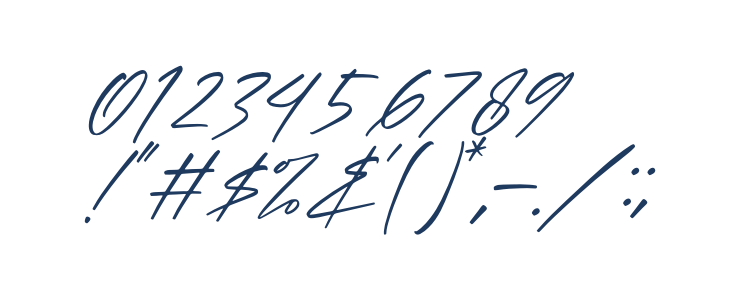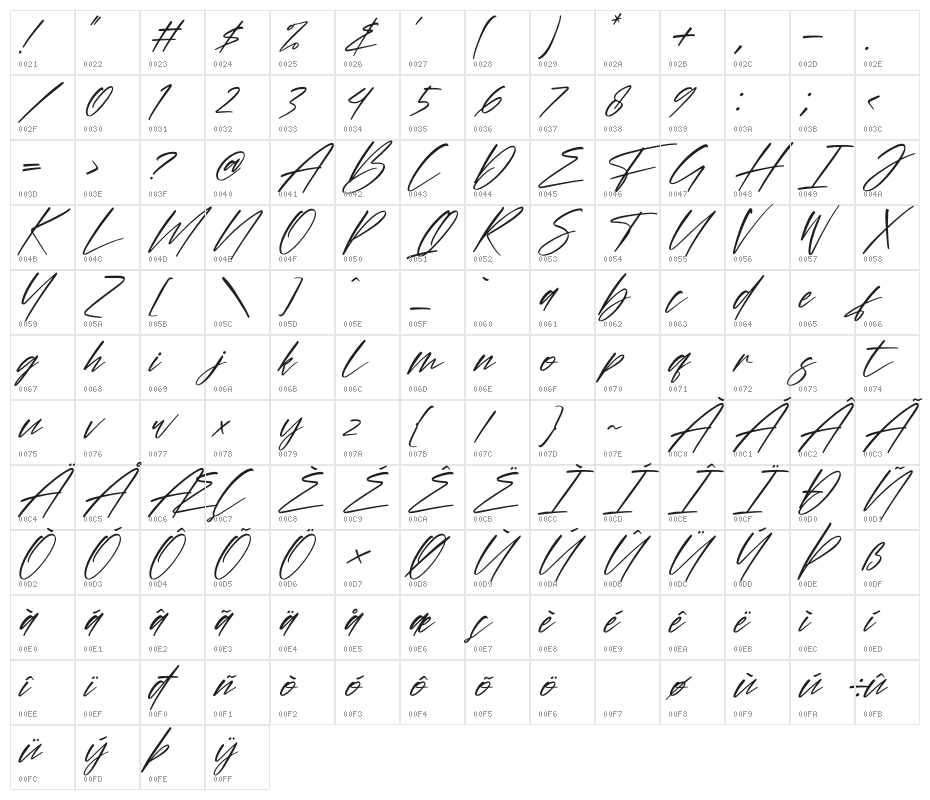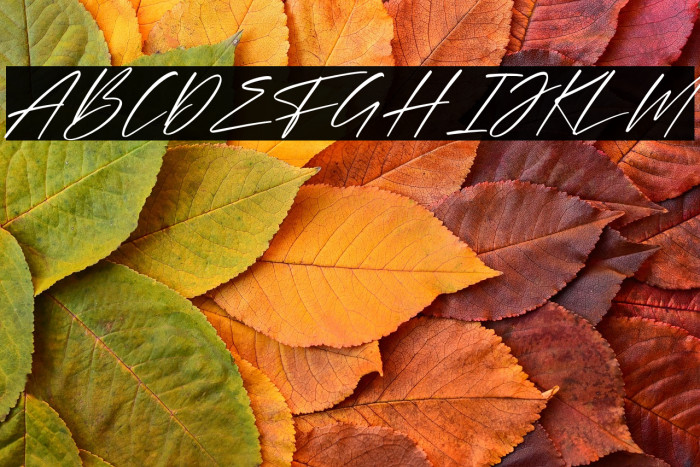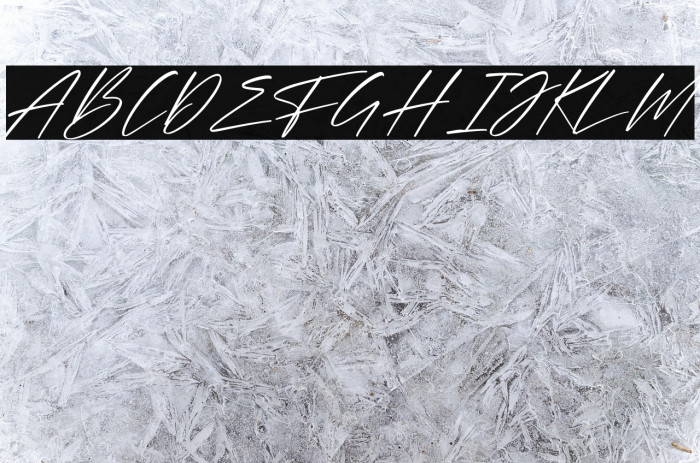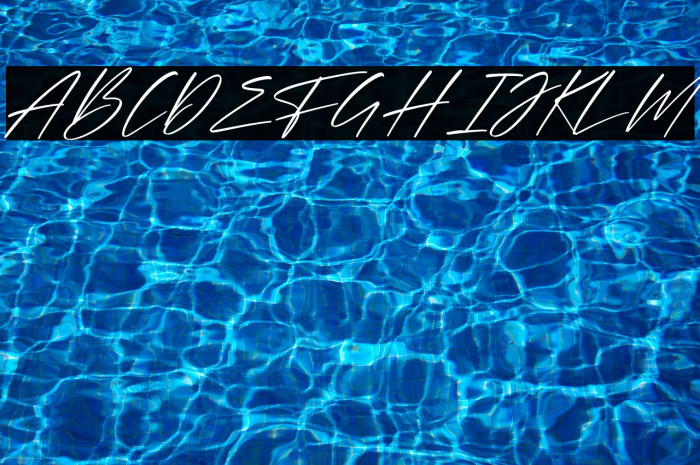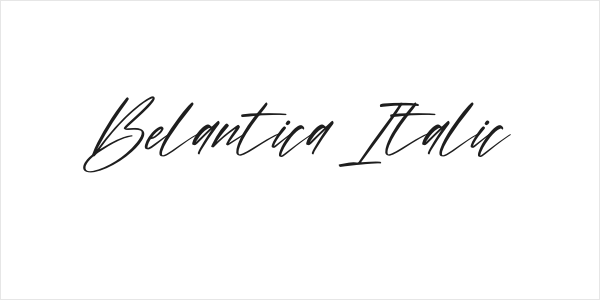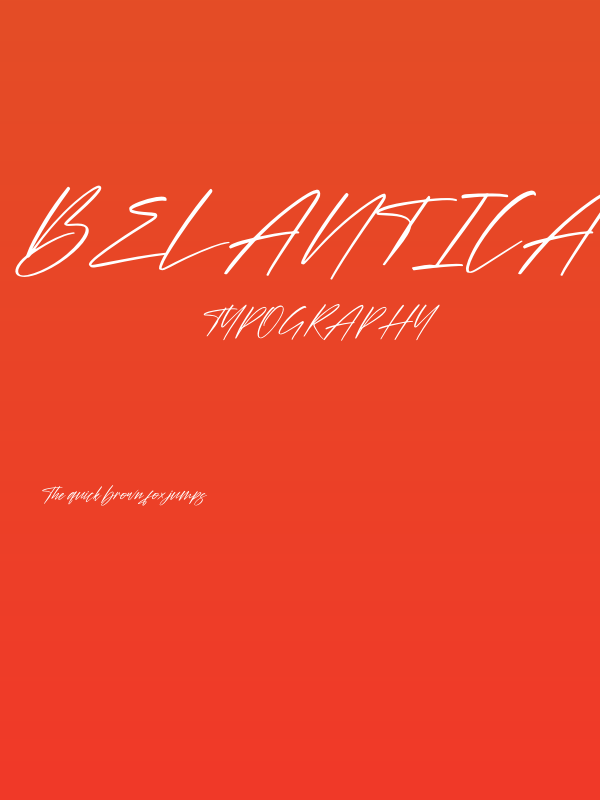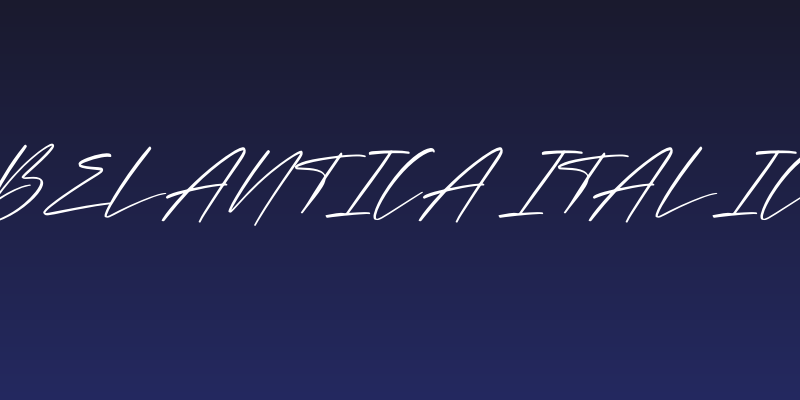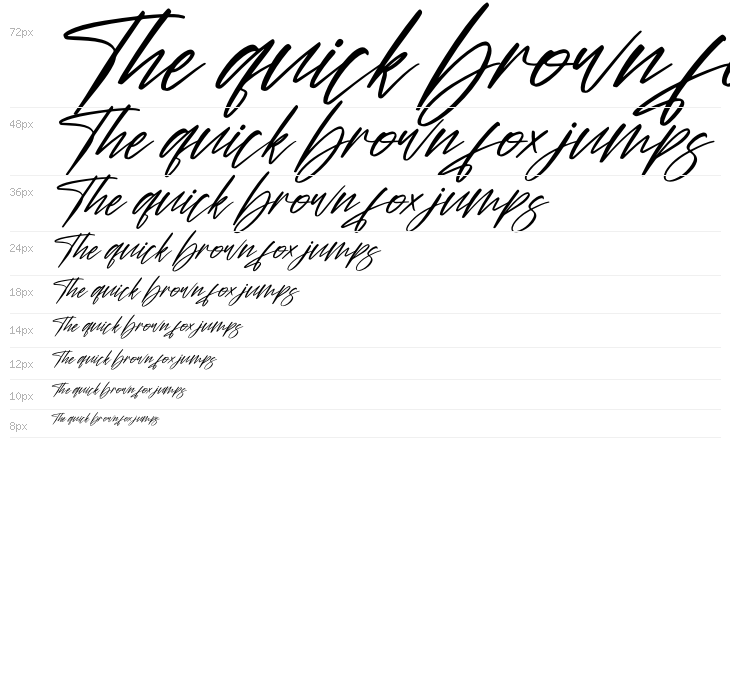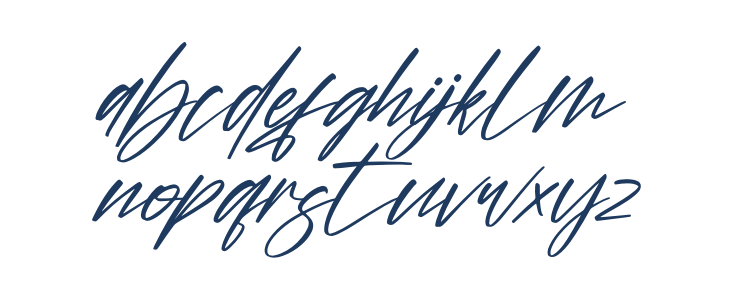
Belantica Italic Font
Belantica Italic Description
This font features a dynamic and expressive script style, characterized by its fluid, cursive strokes and a sense of movement. The letters are connected, creating a seamless flow that mimics natural handwriting. The uppercase letters are bold and slightly slanted, while the lowercase letters maintain a consistent rhythm with elegant loops and curves. The numerals and special characters are designed to complement the overall script style, maintaining the same fluidity and elegance. This font exudes a sense of creativity and personal touch, making it ideal for projects that require a handwritten aesthetic.